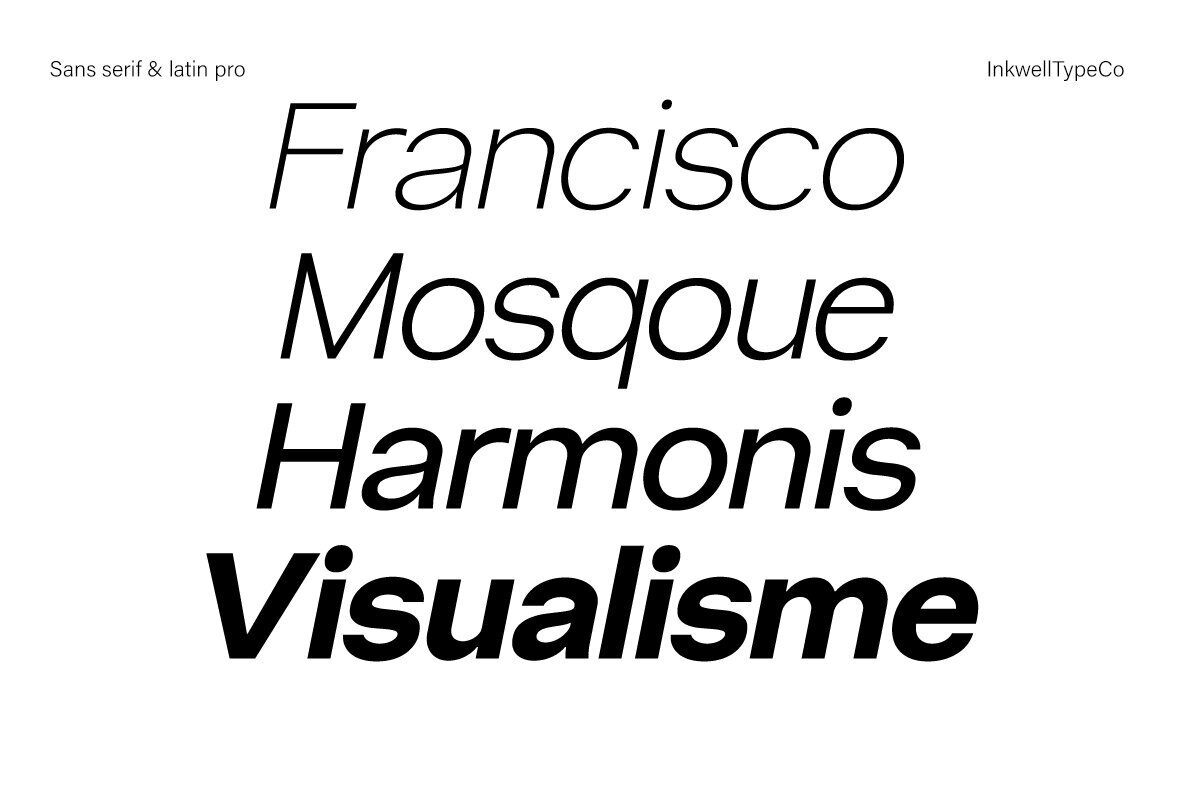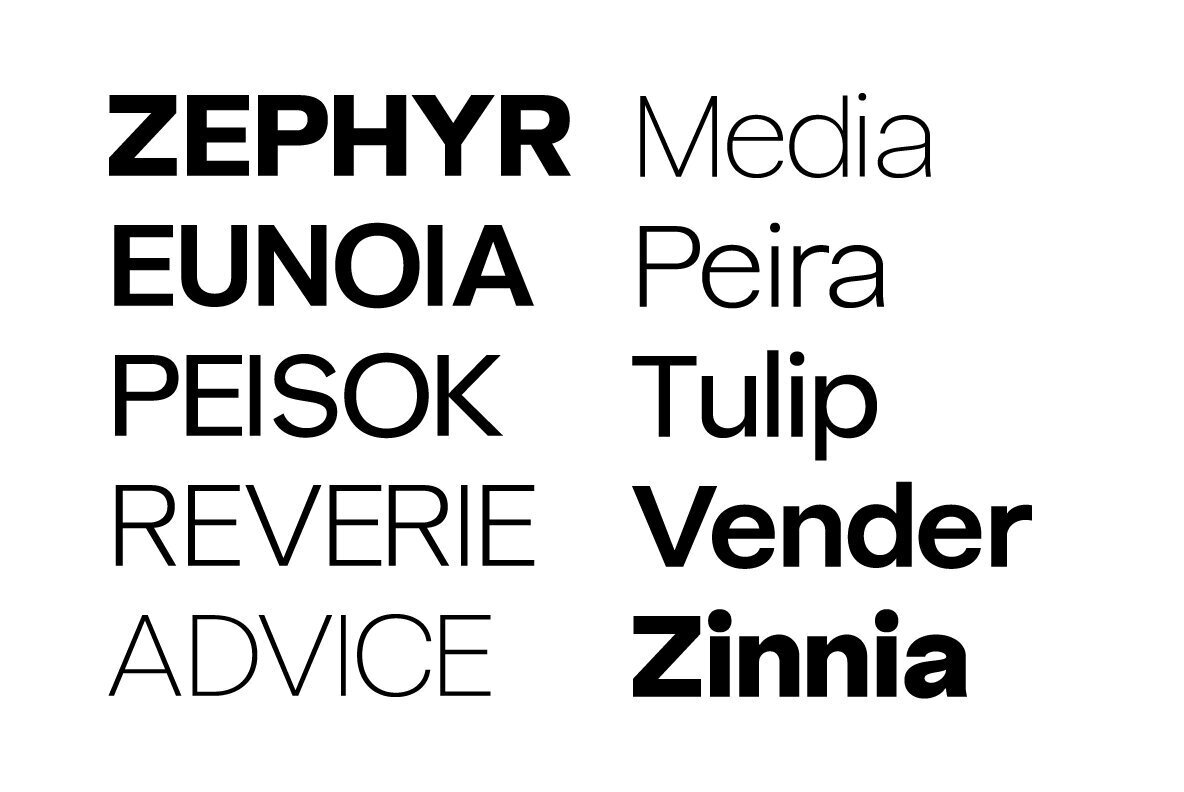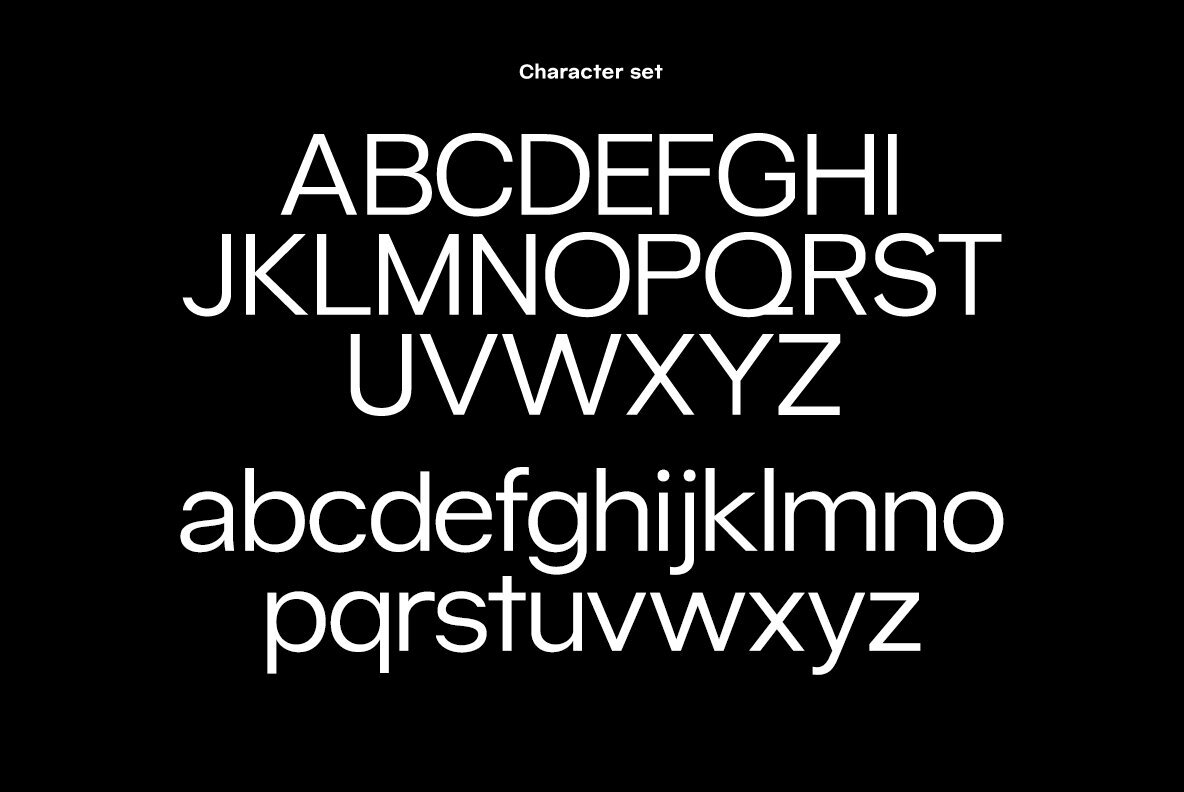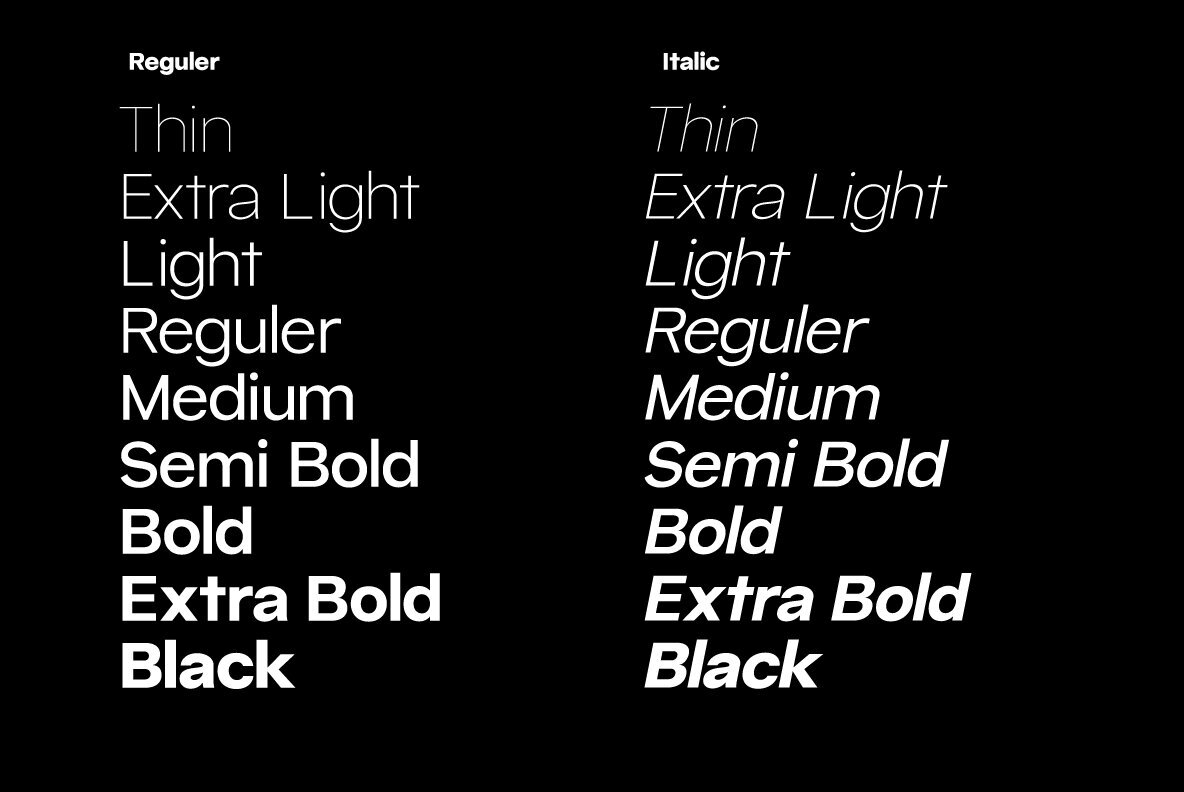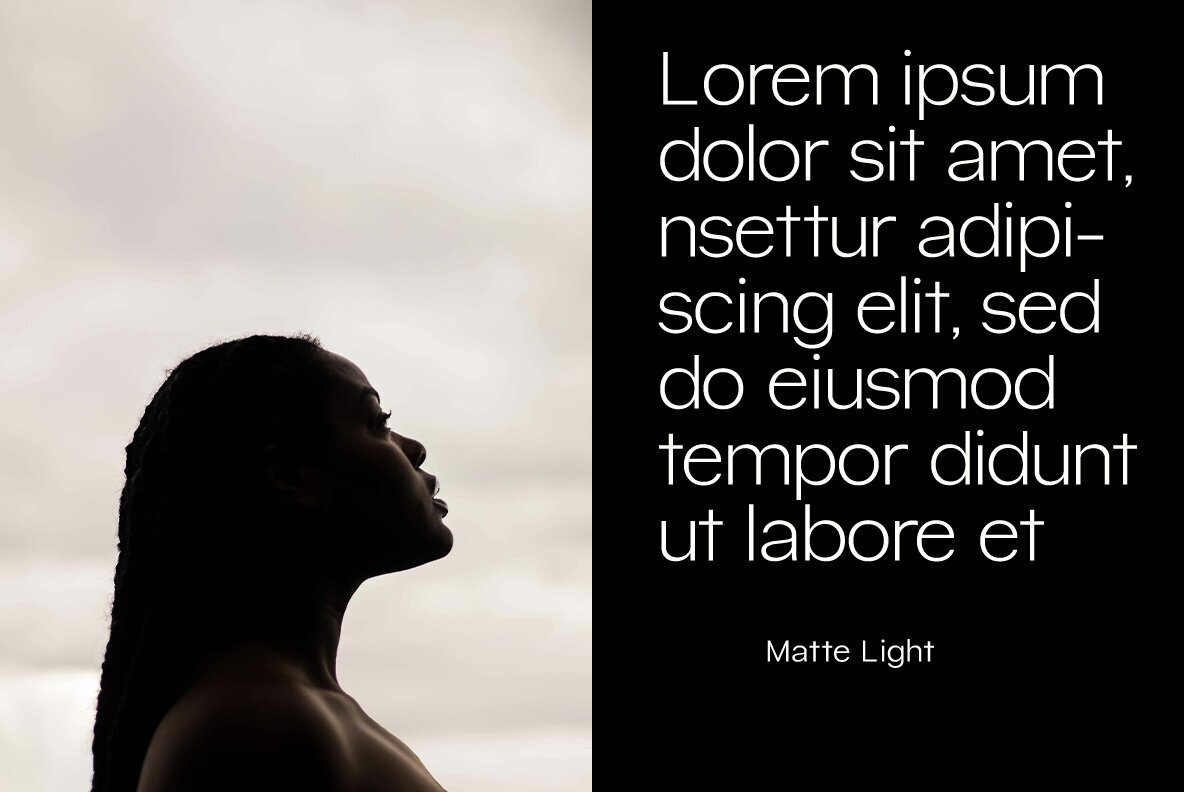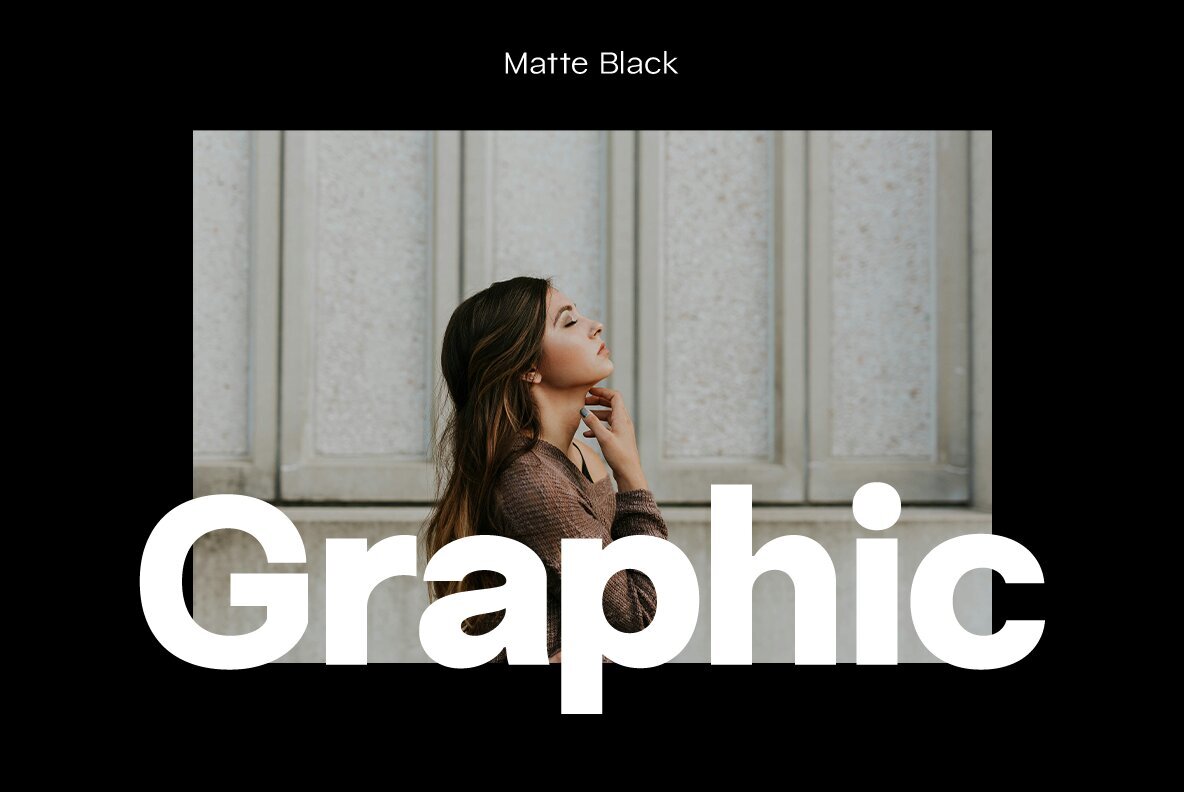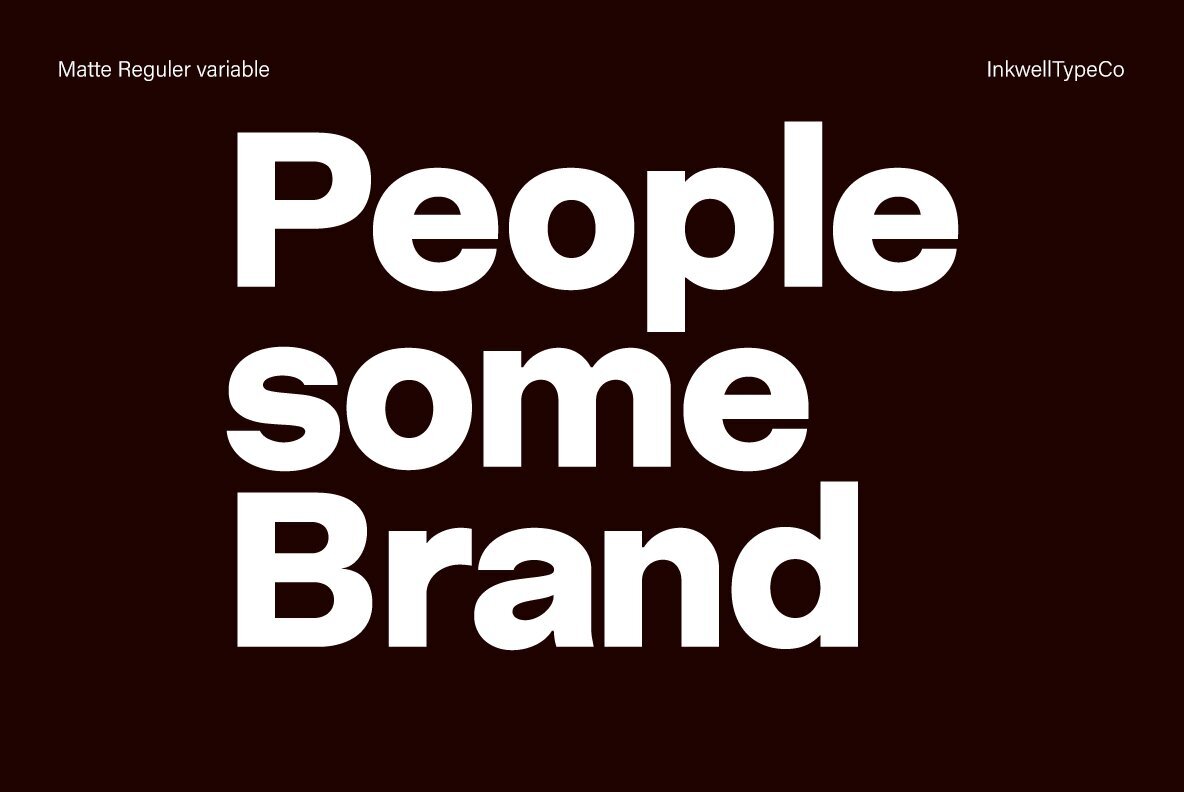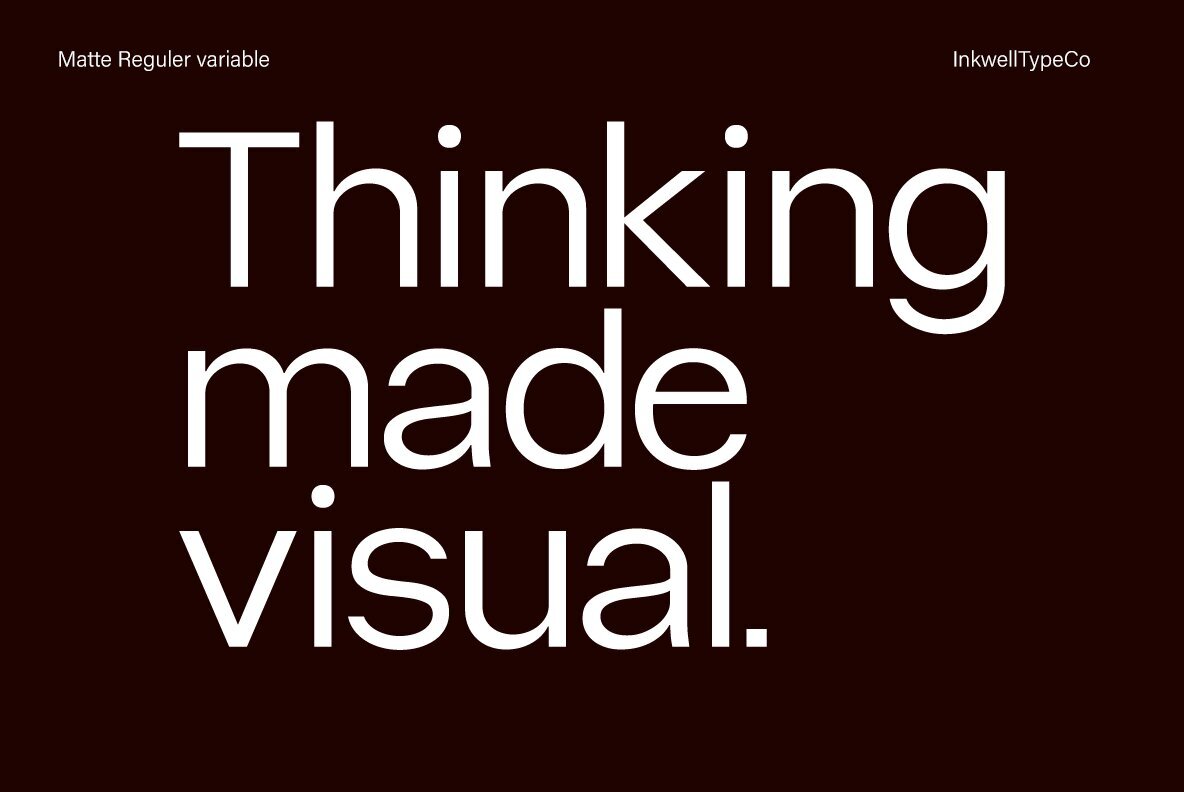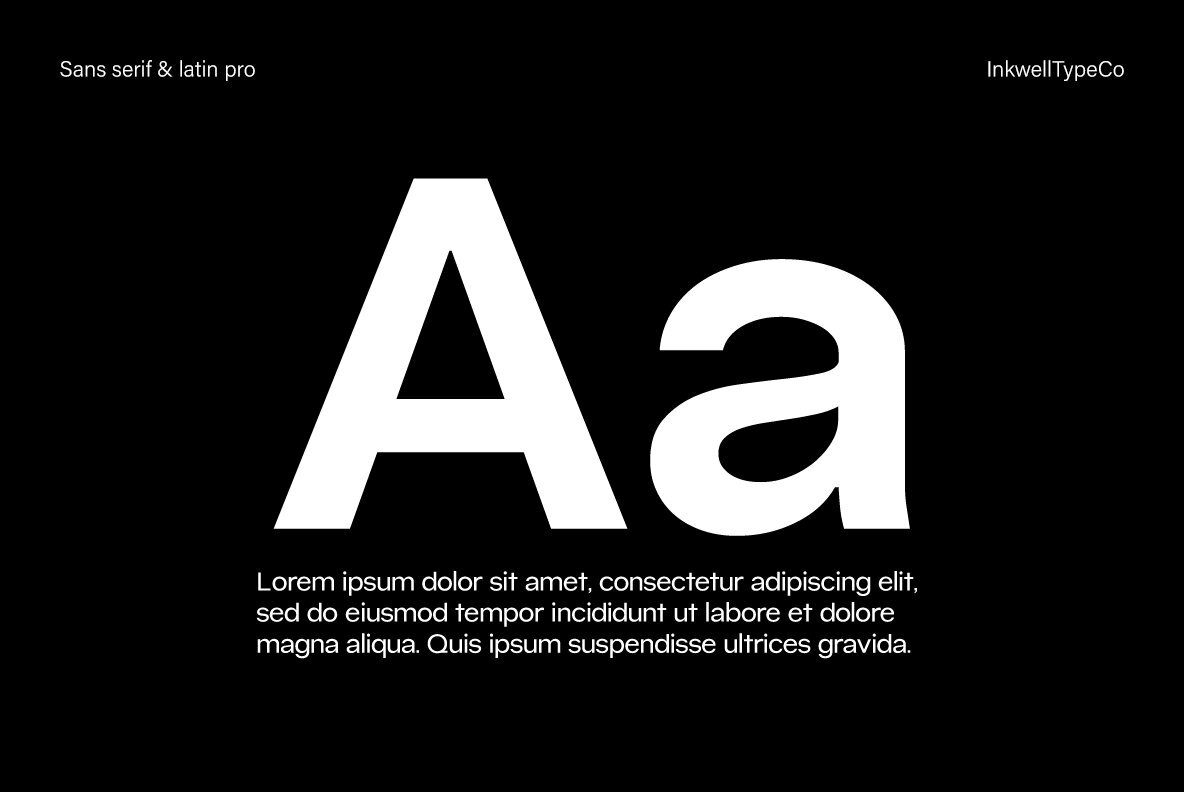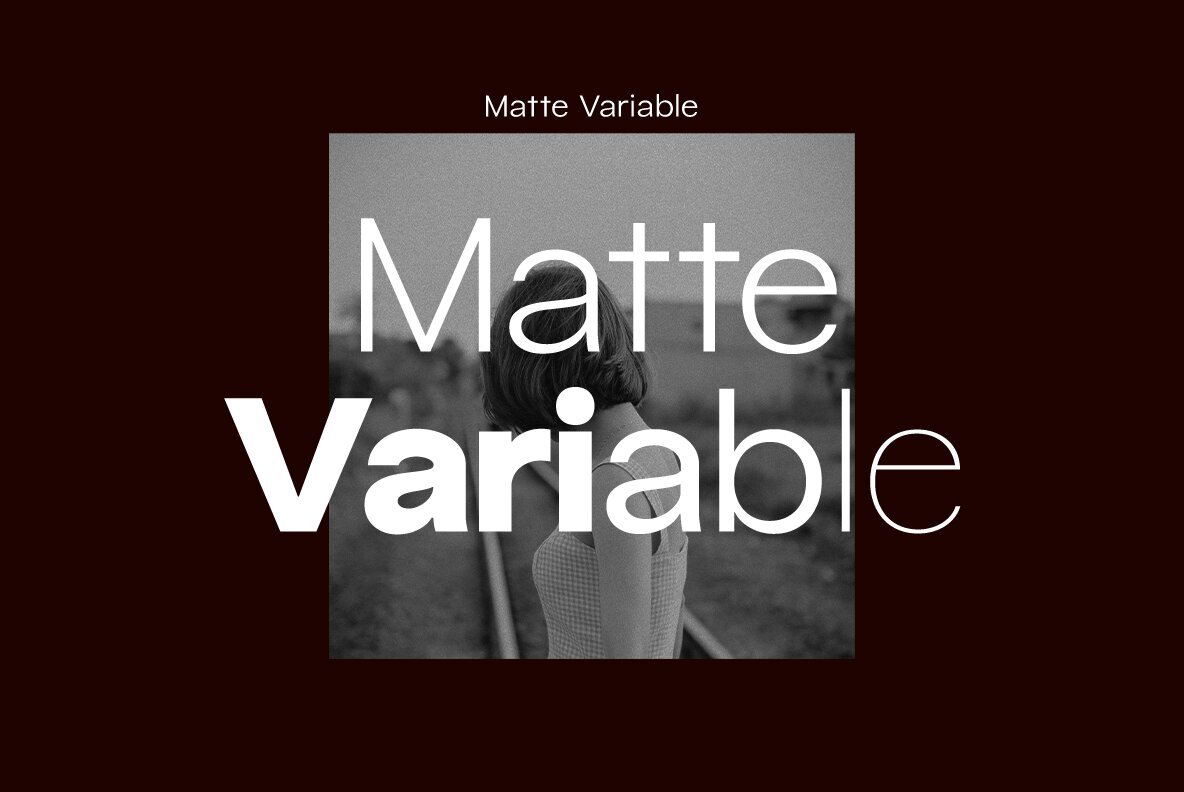
Matte Font
Matte Variable
Matte is a modern font family that blends boldness with clean design. Crafted with clarity and precision, it offers versatile beauty suitable for diverse design needs. Featuring both uppercase and lowercase characters, Matte ensures that your design stands out while maintaining readability.
This font family includes standard numerals and punctuation, along with support for multilingual characters through accents. The PUA encoding ensures additional glyph access, making it a flexible choice for various projects. Choose Matte to bring a modern and bold touch to your next design.